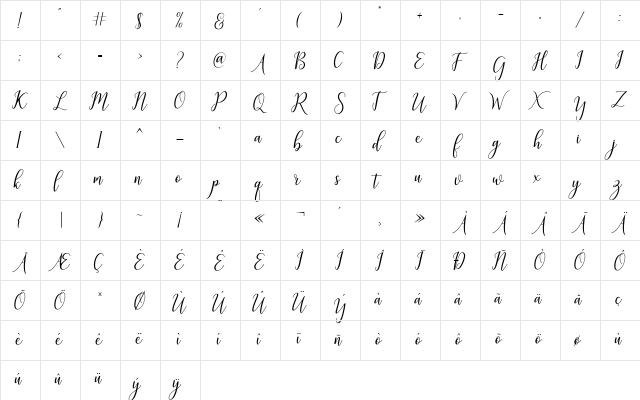
Galatia Script Regular
Design Context for Galatia Script Typeface
Galatia Script brings a calligraphic fluidity to the page — its connecting strokes and expressive curves give it an unmistakably human quality.
Font Pairing: Combine Galatia Script with a simple geometric sans for maximum contrast — the tension between flowing curves and clean structure is a classic typographic pairing.
Pro Tip: Use Galatia Script for short runs of text — names, titles, or taglines. Extended body copy in script faces tires the eye quickly.